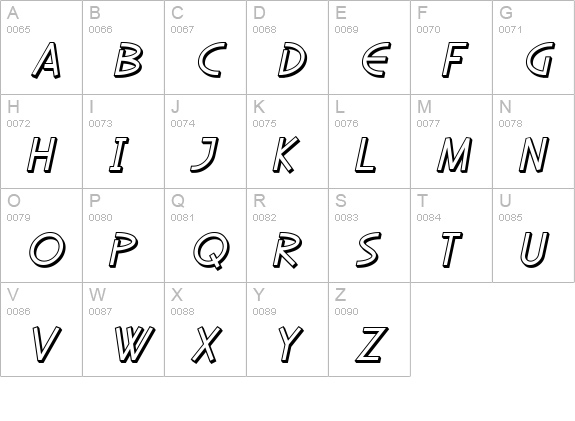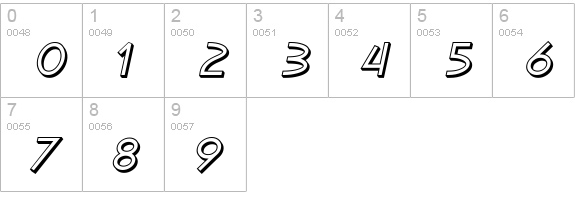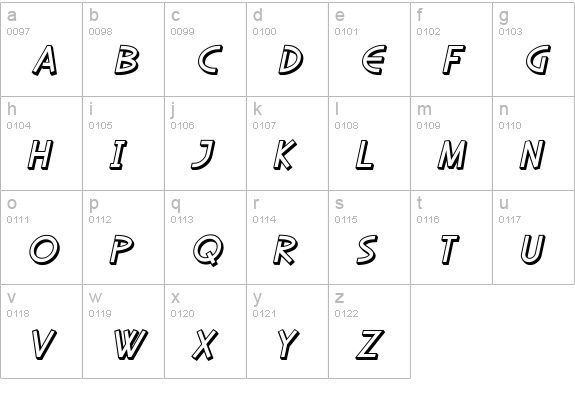
SF Diego Sans Shaded Oblique Font Details
SF Diego Sans Shaded Oblique is a distinctive, italic variant in the SF typeface family \xE2\x80\x94 well suited to design and typography projects.
SF Diego Sans Shaded Oblique font is an exquisite and versatile typeface that combines the elegance of a sans-serif font with the striking appeal of a shaded oblique design. With its unique and modern aesthetic, this font is perfect for adding a touch of sophistication and style to any design project. The SF Diego Sans Shaded Oblique font captivates with its sleek and smooth lines, creating a contemporary and dynamic look. Its oblique angle adds a sense of movement and energy, making it ideal for conveying a sense of action or excitement in your designs. This font is truly a gem for designers and creatives looking to make a bold statement. Whether you are designing logos, posters, headlines, or any other creative project, SF Diego Sans Shaded Oblique font will surely leave a lasting impression. One of the best things about SF Diego Sans Shaded Oblique font is that it is freely available to download at FontsMarket.com. This means that you can easily access and use this amazing font in your projects without any cost. It's a fantastic opportunity to enhance your designs with a high-quality typeface that will elevate your work to the next level. Don't miss out on the chance to add SF Diego Sans Shaded Oblique font to your font collection. Download it for free at FontsMarket.com and unleash your creativity with this stunning and versatile typeface.